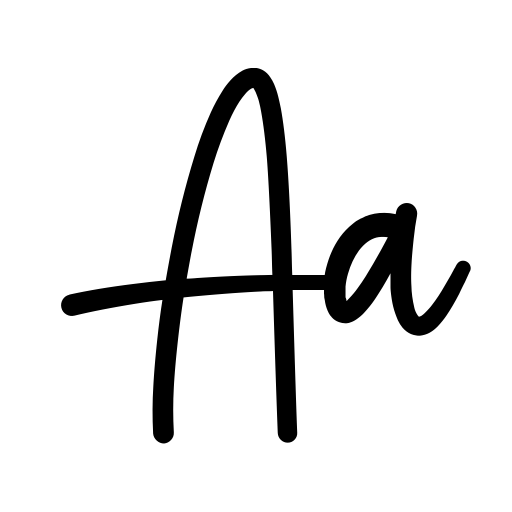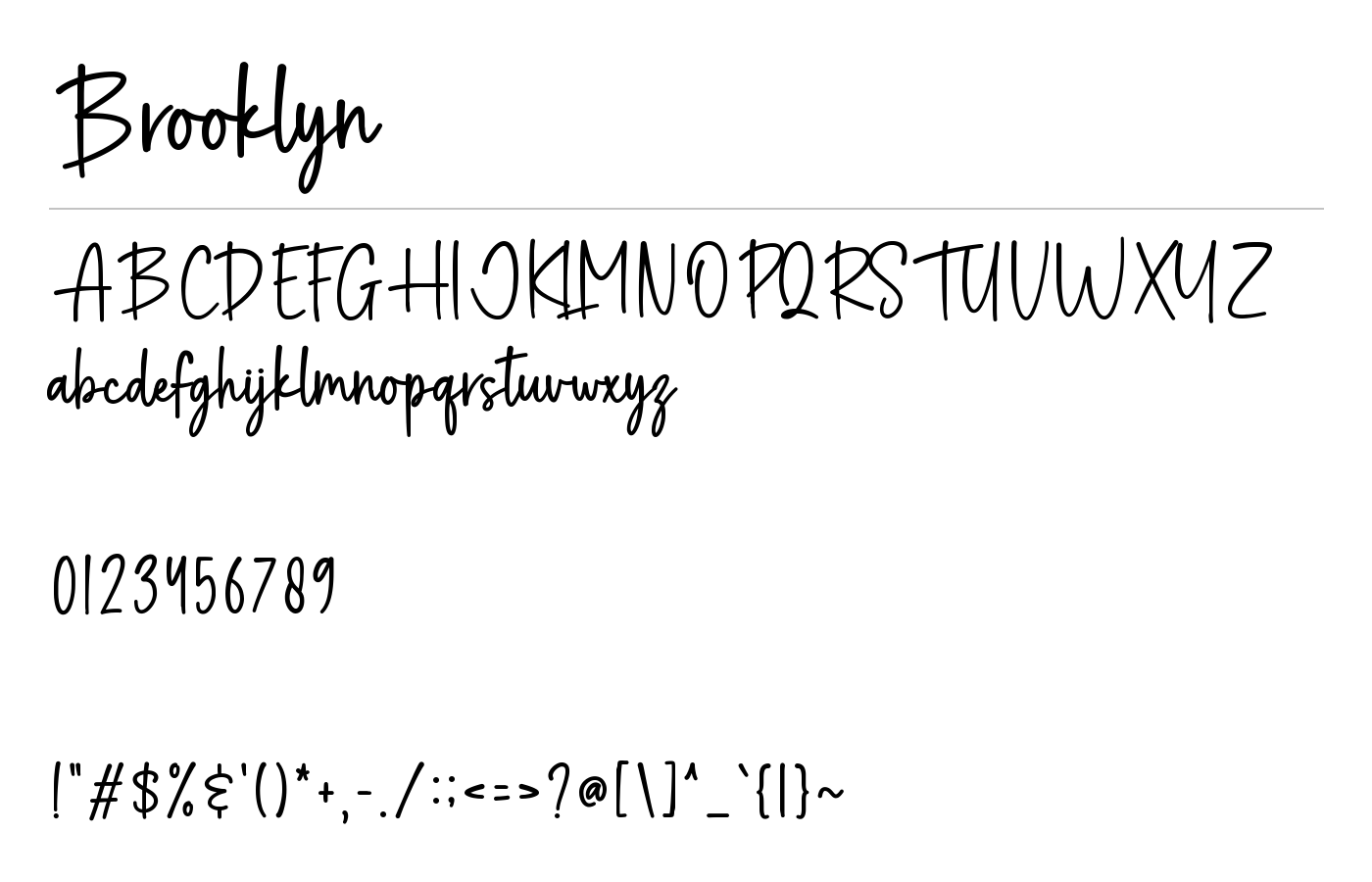
Brooklyn Font is a playful and casual handwritten typeface with a tall, narrow structure and smooth, flowing strokes that mimic natural penmanship. Its slender, slightly irregular letterforms and light weight give it a friendly, approachable personality, making it perfect for informal branding, creative projects, and personal designs where an authentic, modern script feel is desired. This font works well in logos, invitations, and social media graphics where a warm, personal touch is important.
Brooklyn Font
About Brooklyn Font